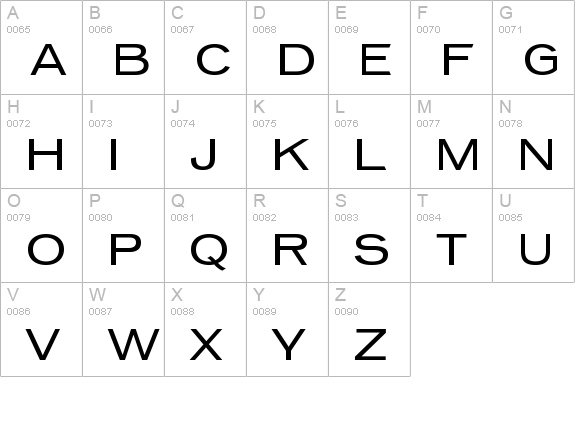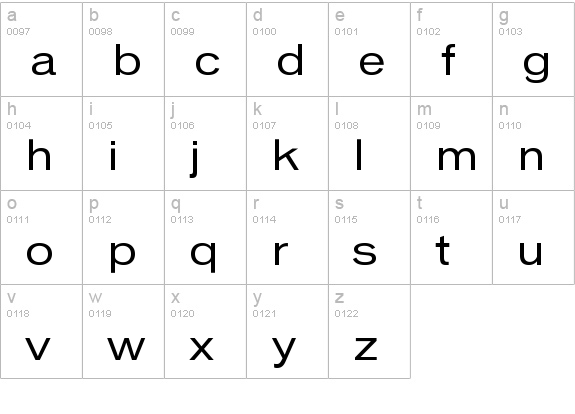
Introducing Vonnes-BookExtended, a magnificent and versatile font that exudes elegance and sophistication. With its clean lines and modern yet timeless design, this font is sure to capture the attention of any reader. Vonnes-BookExtended is the perfect choice for a wide range of projects, from professional branding and corporate communications to editorial design and advertising. Its extended width gives it a distinctive and commanding presence, making it ideal for headlines, titles, and large-scale displays. This font offers a harmonious balance between legibility and creativity, making it suitable for both formal and creative purposes. Its carefully crafted letterforms showcase meticulous attention to detail, ensuring optimal readability even at smaller sizes. One of the most remarkable aspects of Vonnes-BookExtended is that it is freely available to download at FontsMarket.com. This means that you can enhance your projects with this exceptional font without any financial constraints. Whether you are a professional designer or a passionate enthusiast, this font is a valuable addition to your typographic repertoire. Don't miss the opportunity to elevate your designs with the beauty and versatility of Vonnes-BookExtended. Download it now from FontsMarket.com and unlock a world of creative possibilities.